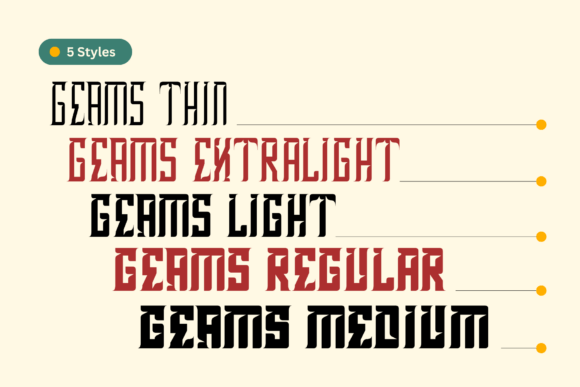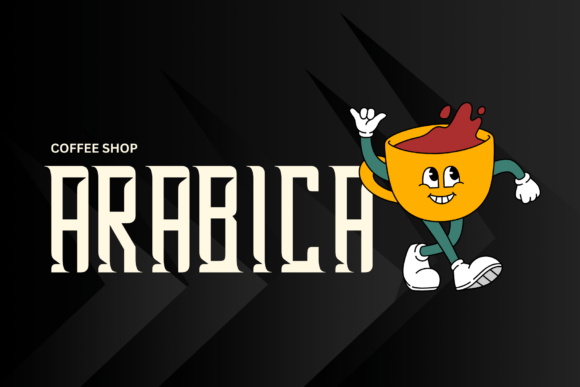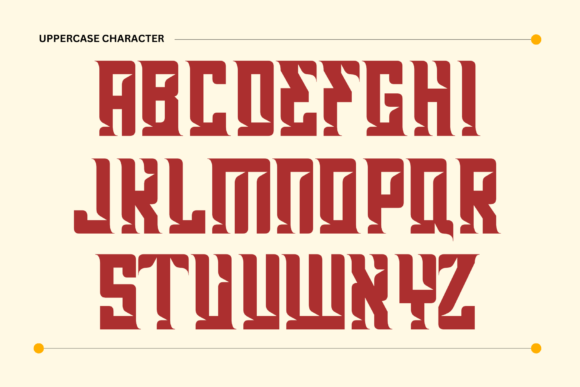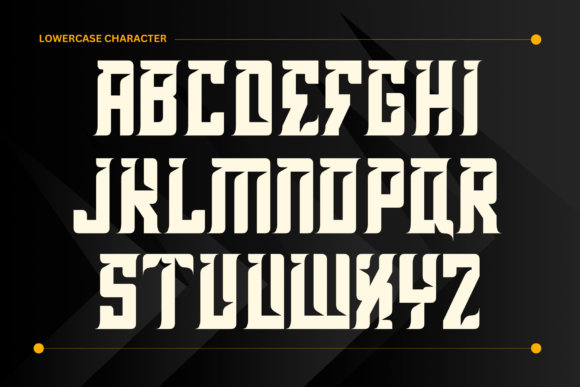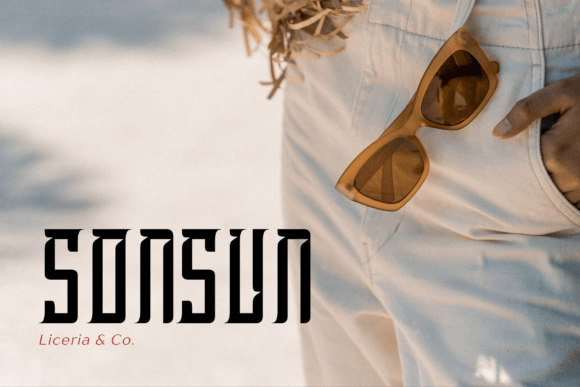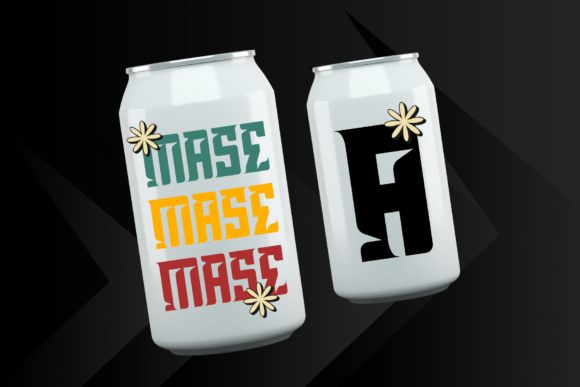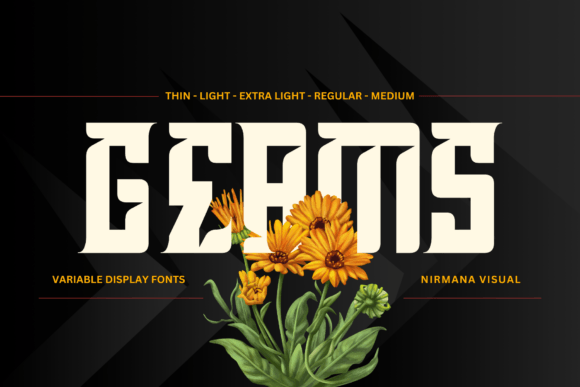
Introducing Geams Font: The Ultimate Variable Display Font for Modern Designers
In the realm of typography, a font can make or break the visual appeal of a design. For designers and crafters seeking a modern, bold, and versatile font, look no further than Geams. This inventive variable display font is distinguished by its sleek design and adaptive versatility, making it an ideal choice for a wide range of applications.
The Power of Customization: Unleashing Creative Freedom with Geams
What sets Geams apart from other fonts is its expansive palette of styles and weights. This font offers an unprecedented level of customization, allowing designers to tailor the thickness, width, and slant of each letter to suit their specific needs. With Geams, you can effortlessly craft a customized aesthetic suitable for an array of themes, from bold and edgy to sleek and sophisticated.
Geams’ unique feature lies in its mastery of customization, providing designers with the control to:
- Adjust the thickness of each letter to create a bold statement or a subtle nuance
- Modify the width to fit your design’s specific requirements
- Experiment with different slants to add a touch of elegance or playfulness
Seamless Adaptability: Geams Shines Across Various Screens and Media
Geams is designed to conform seamlessly to varying screen sizes and media, ensuring that your design looks stunning across all platforms. Whether you’re creating a headline, poster, branding materials, or digital content, Geams adapts effortlessly to deliver a crisp and precise visual experience.
With Geams, you can:
- Create stunning headlines that grab attention
- Design eye-catching posters that stand out
- Develop a strong brand identity that resonates with your audience
- Elevate your digital content with a sophisticated and modern aesthetic
A Perfect Blend of Function and Aesthetics: Why Geams Stands Out
For designers who prioritize a blend of function and aesthetics, Geams is the font of choice. Its pristine lines and adaptable features make it an ideal choice for a wide range of applications, from print to digital media.
Geams embodies aesthetic appeal through functionality, offering:
- Geometric precision that adds a touch of sophistication to your design
- A modern and bold design that makes a statement
- Effortless customization that streamlines your design process
Experience the Best of Geams: Where Design Meets Sophistication
Discover the limitless possibilities of Geams, where design meets sophistication. With its unparalleled level of customization and adaptability, Geams is poised to revolutionize the world of typography.
Whether you’re a seasoned designer or a crafty enthusiast, Geams invites you to experience the art of typography like never before. Join the journey and unlock the full potential of Geams – the ultimate variable display font for modern designers.
Unlock the power of Geams today and elevate your design to new heights!